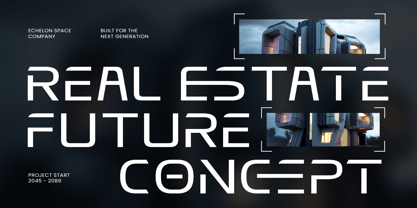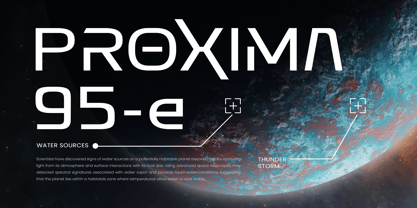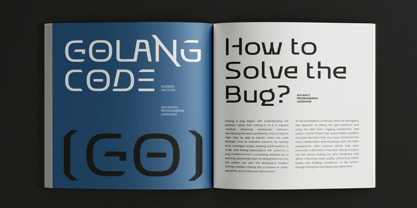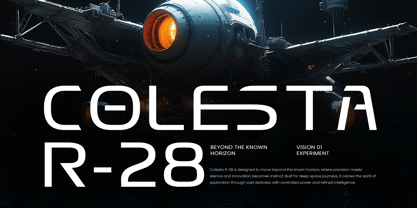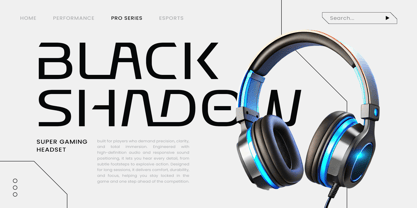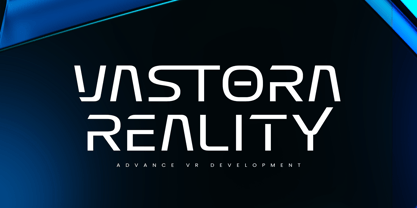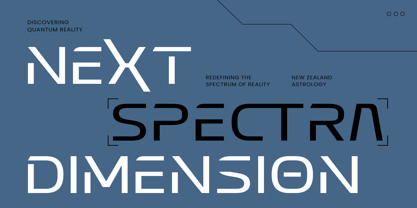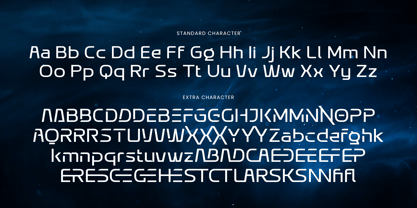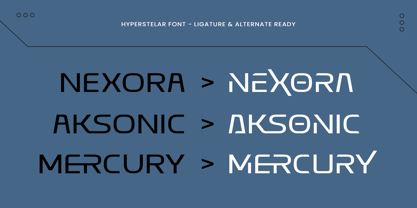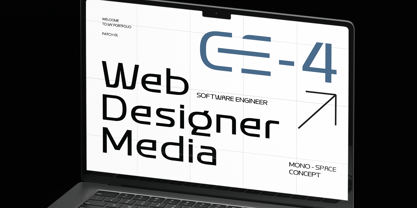
Hyperstellar
by Vampstudio
The Hyperstellar Font Family was designed by Irfan syah and published by Vampstudio. Hyperstellar contains 1 styles.
Hyperstelar is a futuristic sans serif font designed for modern, tech-inspired, and forward-thinking visual projects. With clean geometric forms, subtle curves, and distinctive ligatures, this typeface delivers a strong contemporary feel suitable for branding, digital interfaces, posters, and editorial layouts. The font includes stylistic alternates and custom ligatures that transform standard words into eye-catching typographic compositions. Hyperstelar is perfect for sci-fi themes, technology brands, gaming visuals, space concepts, and modern identity design. Its balanced proportions and clear structure make it highly legible while still maintaining a unique futuristic character. Tags